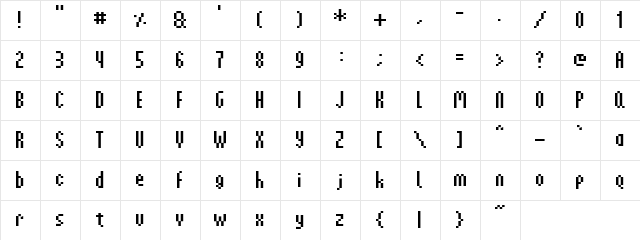
Demtrek Medium Font Preview
Demtrek Medium
Design Context for Demtrek Typeface
Demtrek offers clean, dependable letterforms without strong stylistic allegiance, making it a practical choice for designers who need flexibility.
Pro Tip: Use Demtrek in both headline and body roles to test its range before committing to a single application.